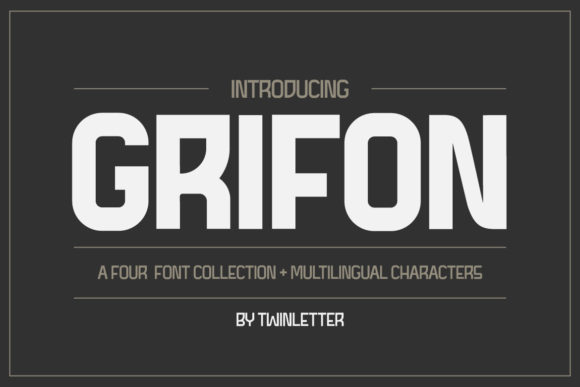
Embark on a typographic journey with Grifon, the display font that radiates boldness and thickness. Crafted by the skilled hands at Twinletter, Grifon is not just a font; it's an artistic expression waiting to be unleashed.
With its commanding presence, Grifon effortlessly captivates audiences in the realm of web advertising. Its robust letterforms exude strength and confidence, making it the ideal choice for brands seeking to make a lasting impact. From captivating headlines that demand attention to persuasive call-to-actions that drive conversions, Grifon is your trusted ally in the digital arena.
Beyond its undeniable visual appeal, Grifon possesses a versatility that knows no bounds. Whether you're crafting eye-catching social media graphics, designing stunning posters, or creating engaging presentations, Grifon seamlessly adapts to your creative vision. Its ability to elevate any project is truly remarkable.
Unleash your creativity and let Grifon be the cornerstone of your design endeavors. Its bold strokes and commanding presence will transform your words into powerful statements that resonate with your audience. Grifon is not just a font; it's an investment in your brand's visual identity.